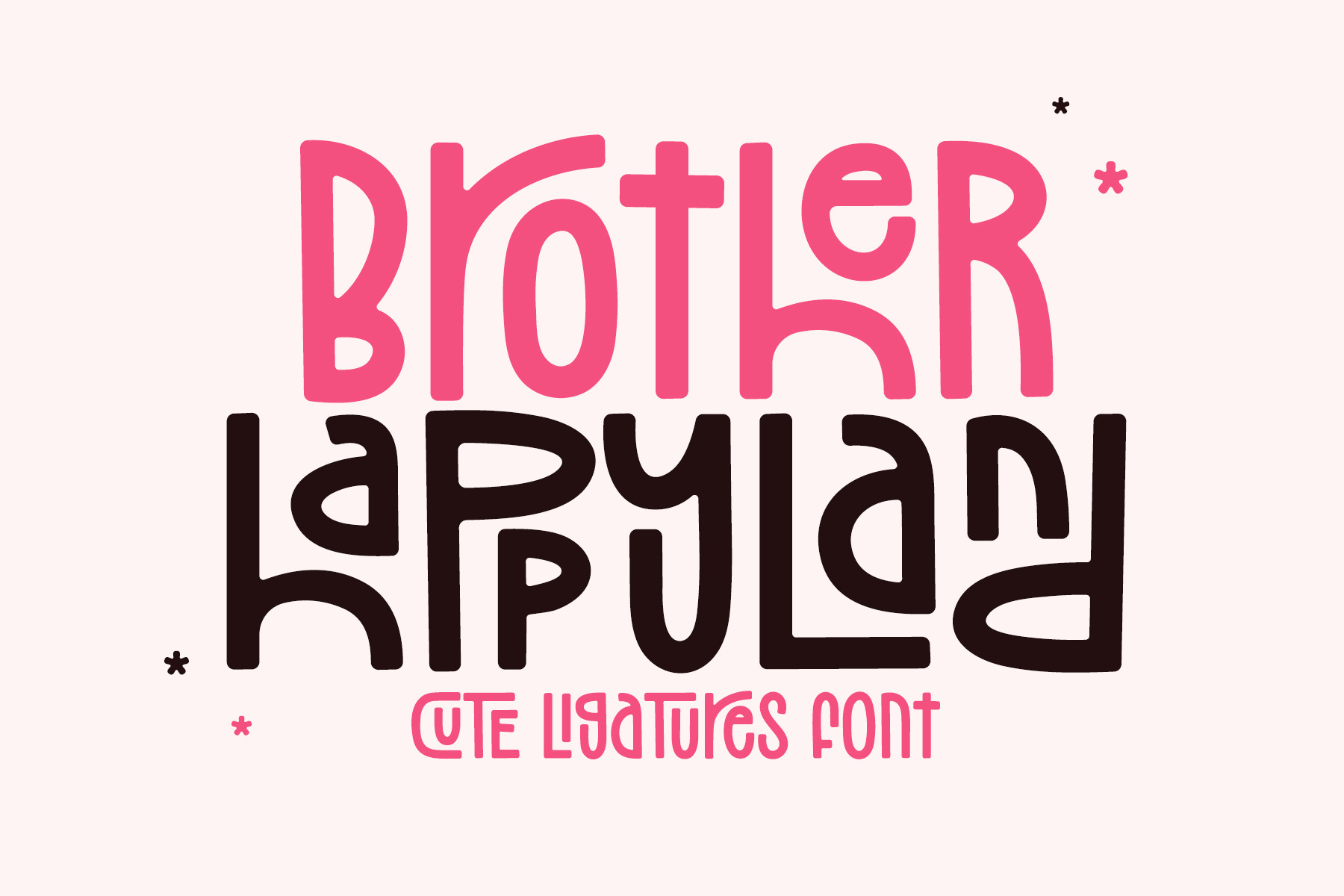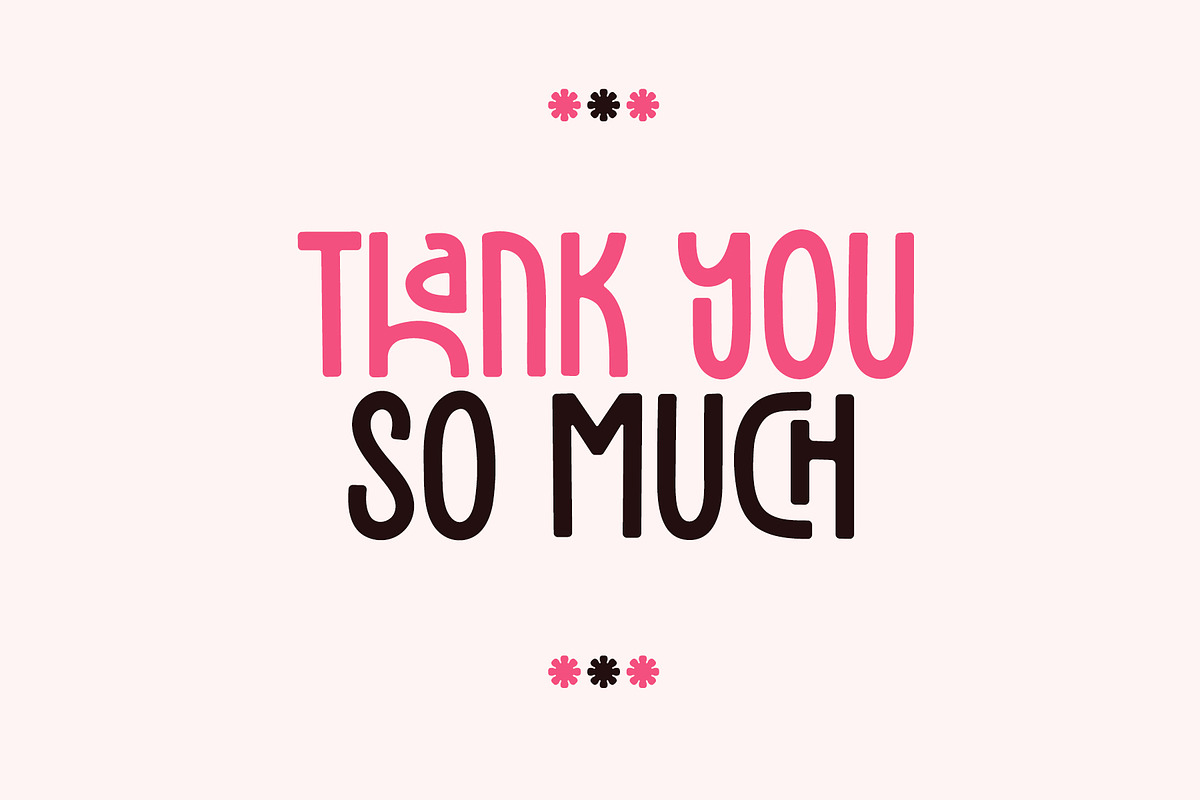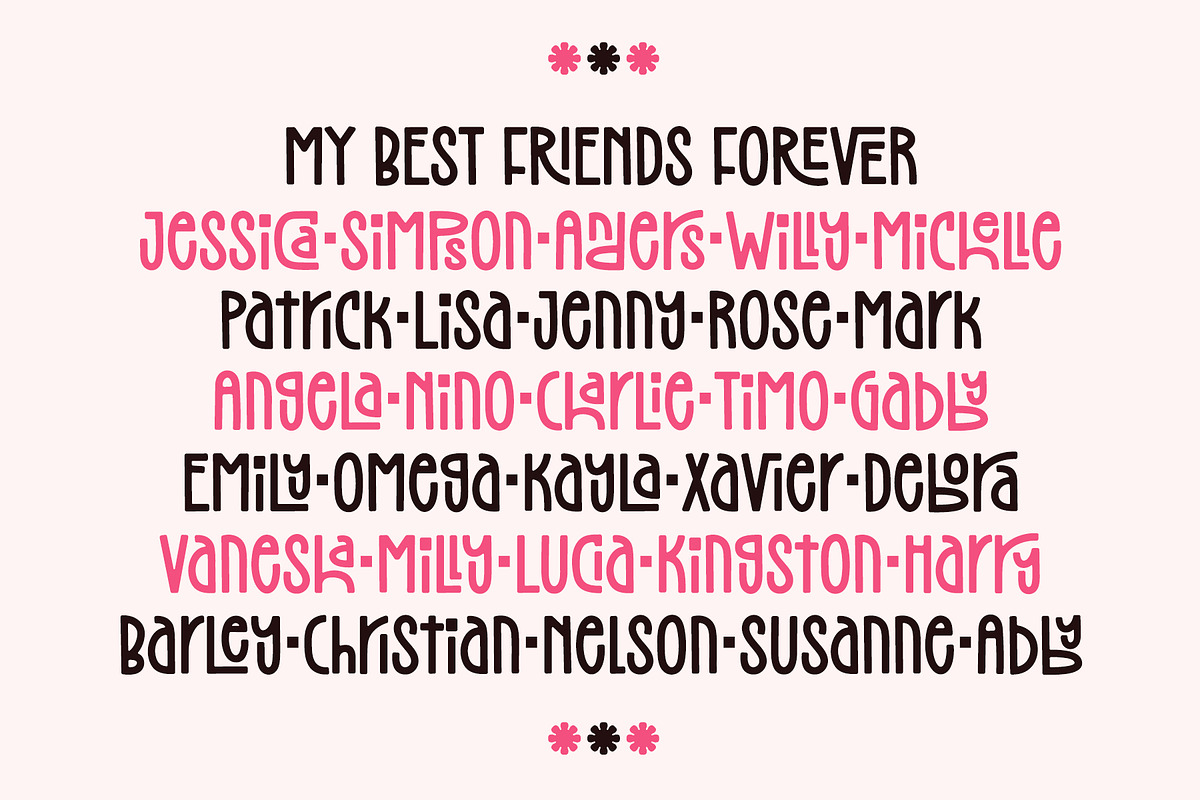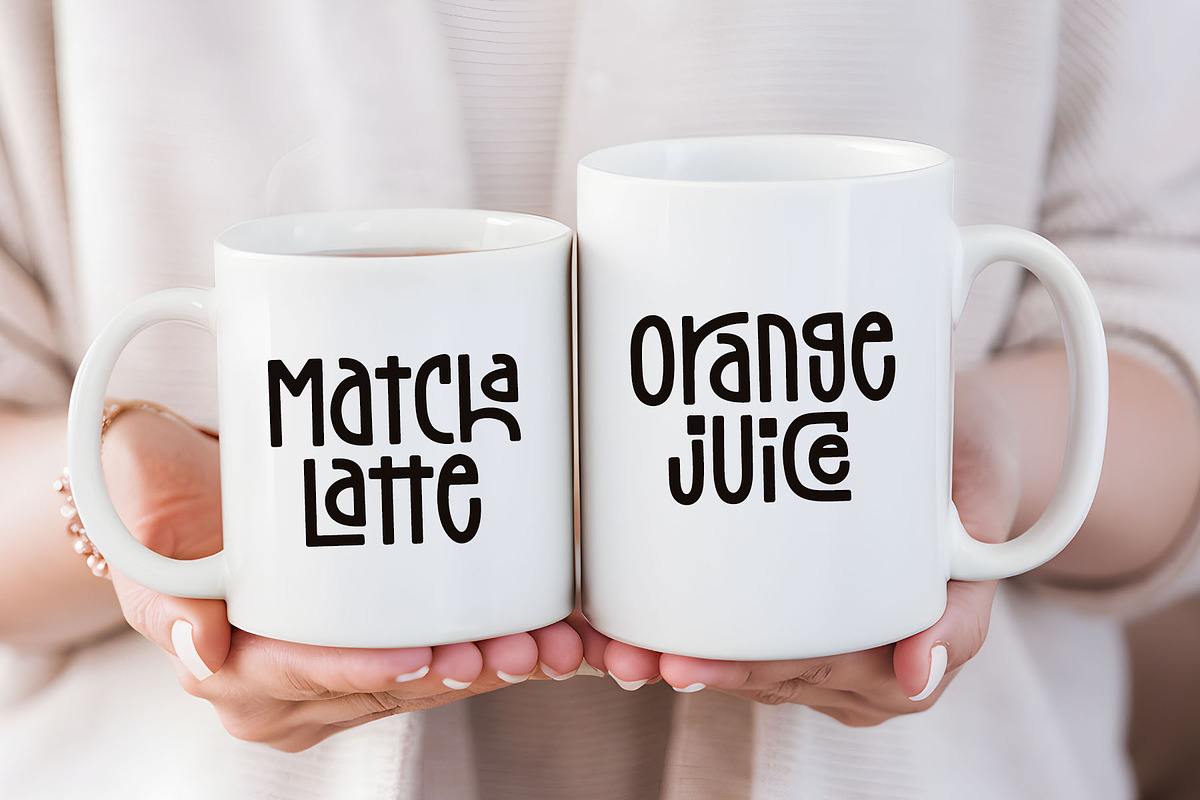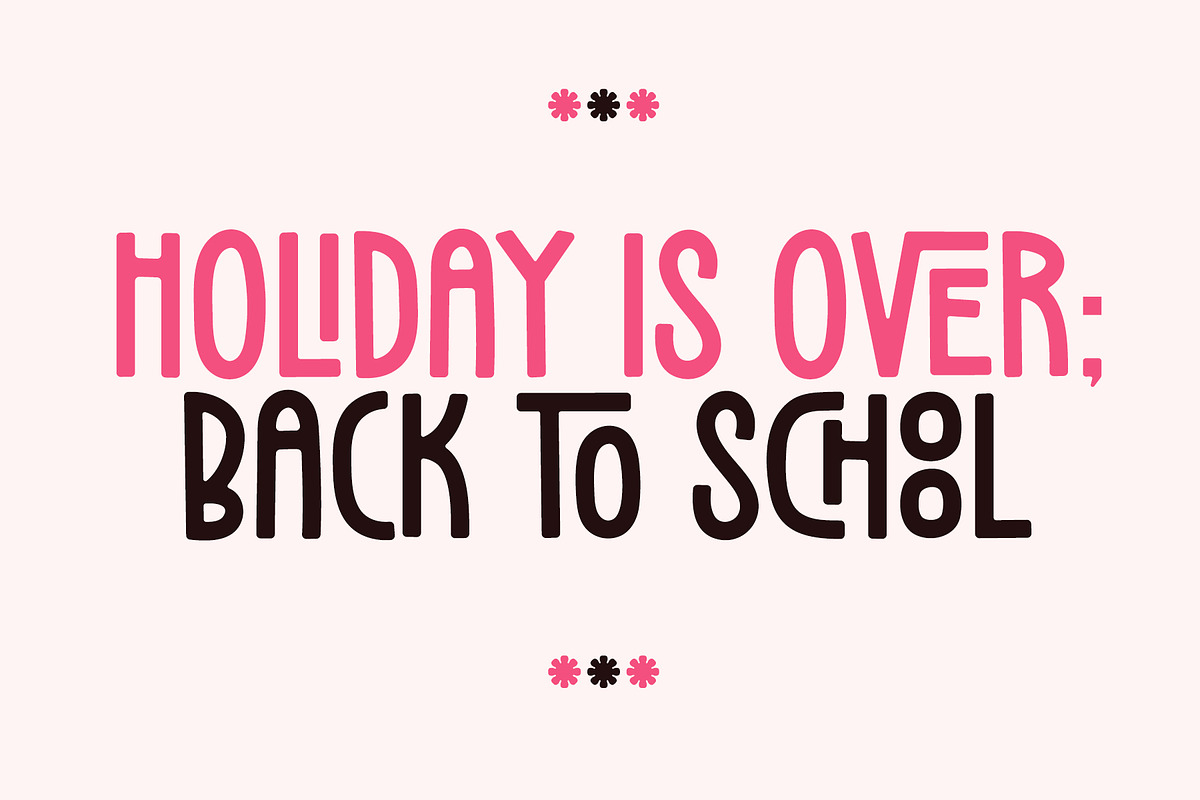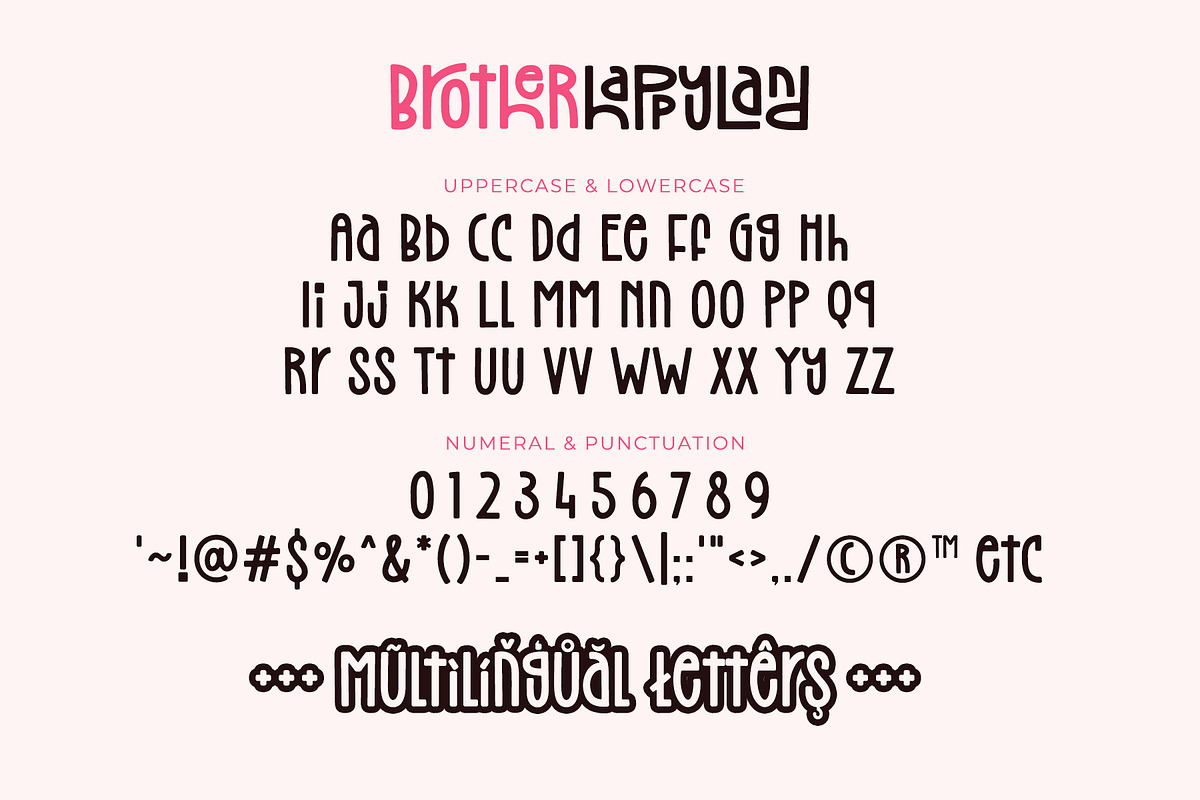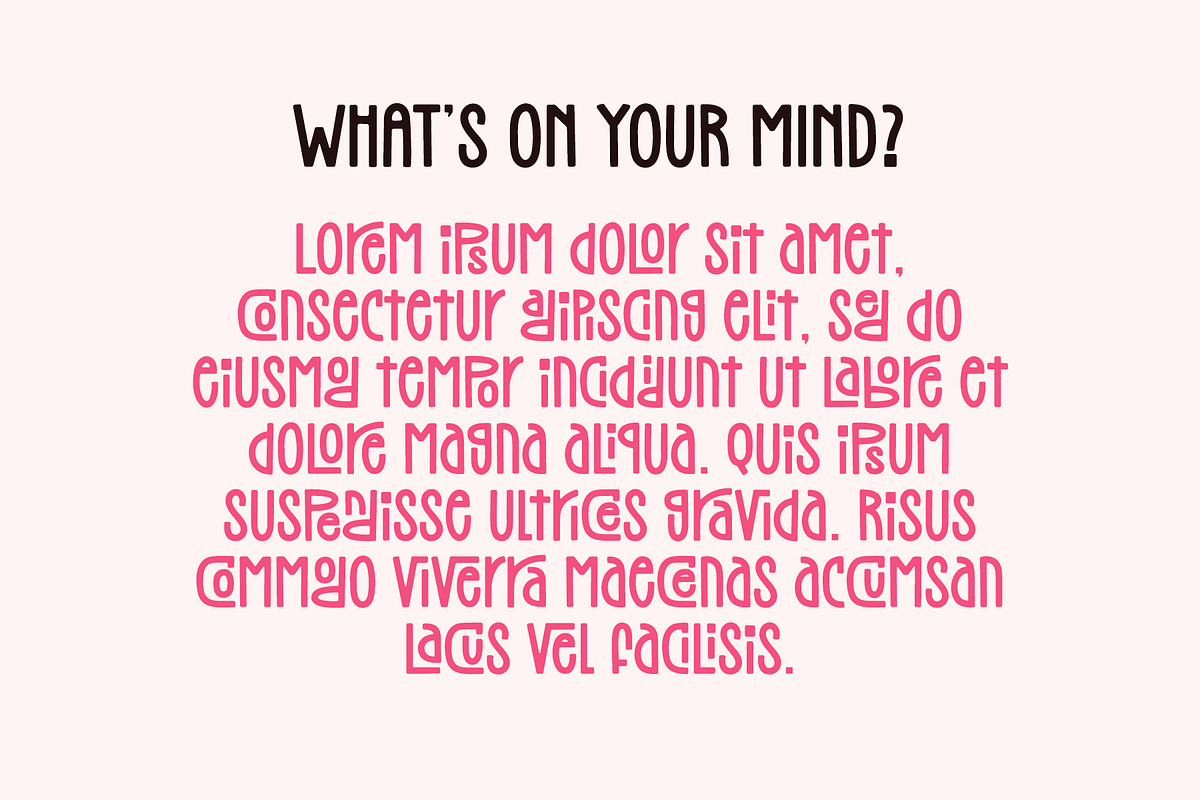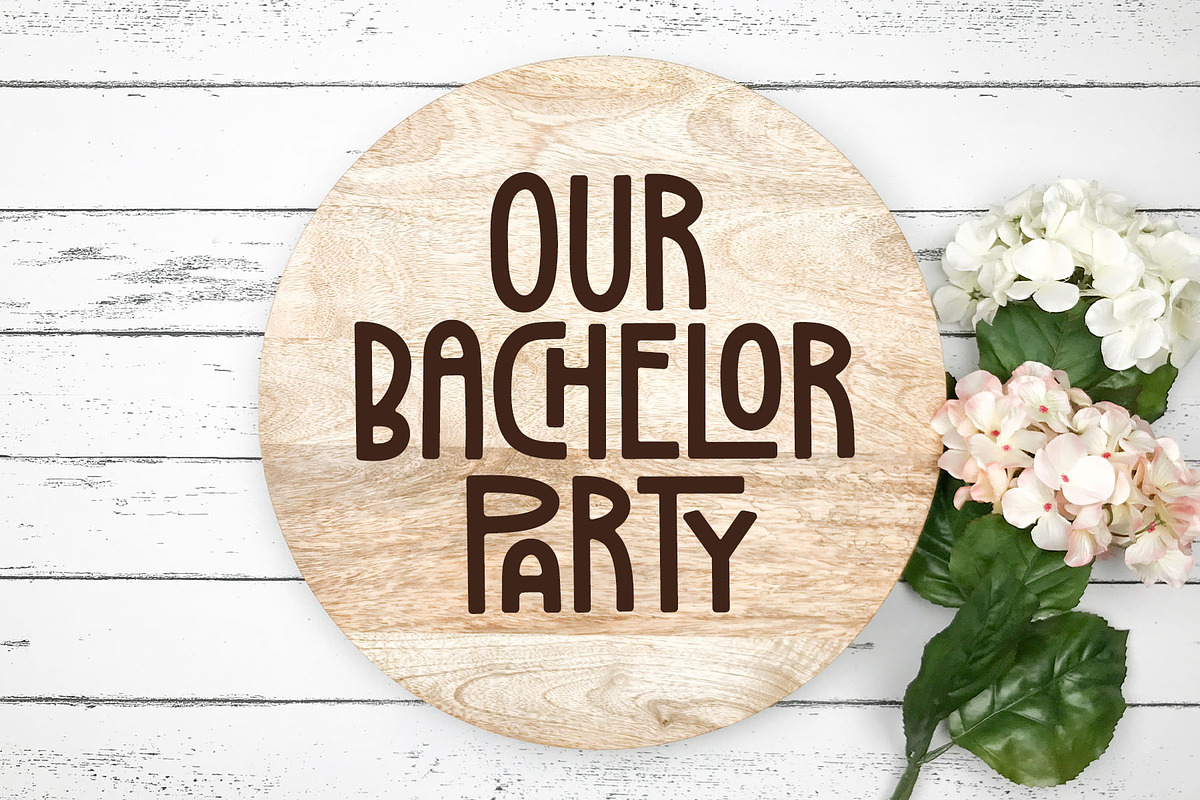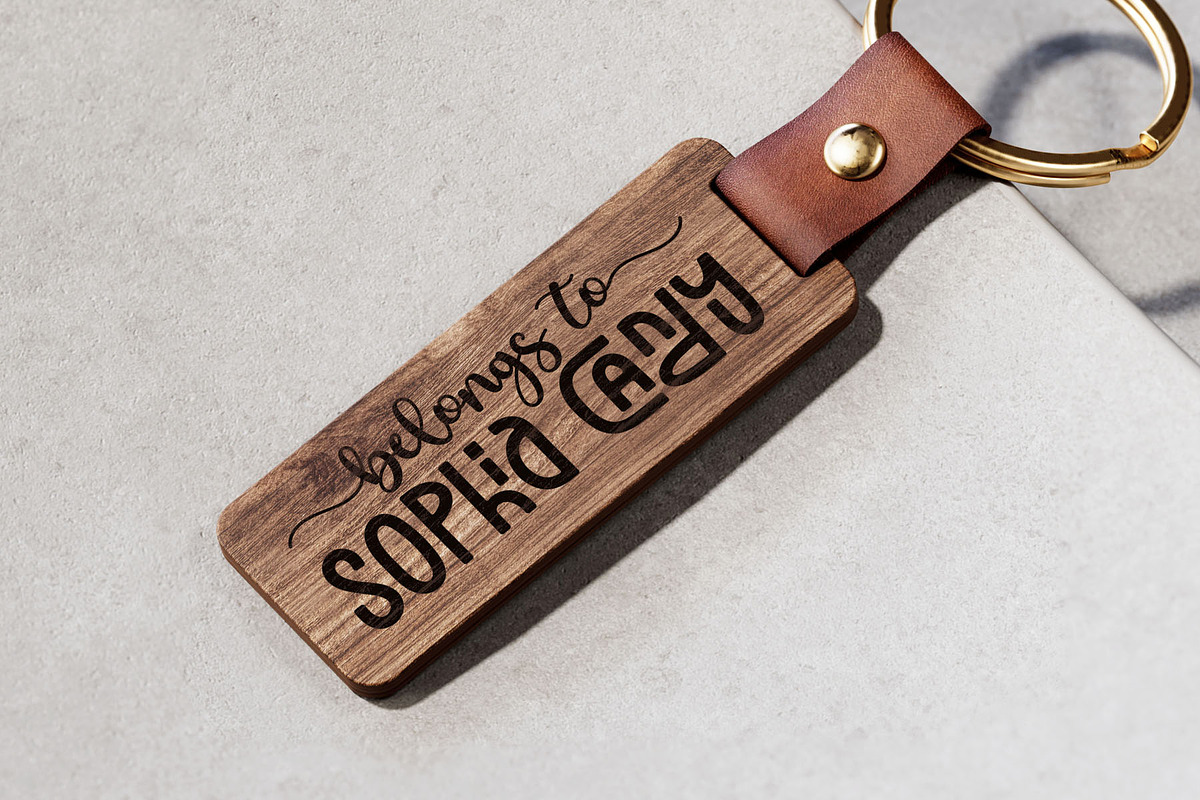
Brother Happyland - Fun Cute Font
Brother Happyland is display font with fun and cute vibes.
This font has lots of ligatures for its uppercase and lowercase. The ligatures radiates cuteness and playful vibes.
This font is pretty font for any projects, especially with cute and playful style, such as logo, t-shirt, crafting, poster, branding, sticker, sublimation, quotes, and many more.
- Lowercase and Uppercase with ligatures
- Most Multilingual Accent